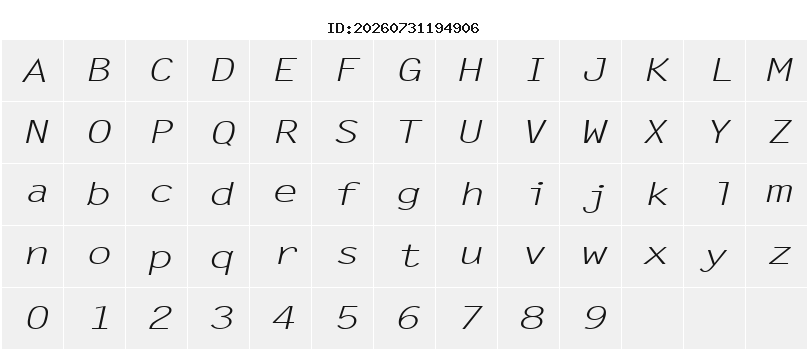
Lechter Extended Preview
• Font Name: Lechter Extended
• Full Font Name: Lechter Extended Italic
About Lechter Extended.ttf
Lechter Extended.ttf is a modern, elegant sans-serif font designed for ultimate readability and visual harmony. Perfect for branding, headlines, web design, and print materials.